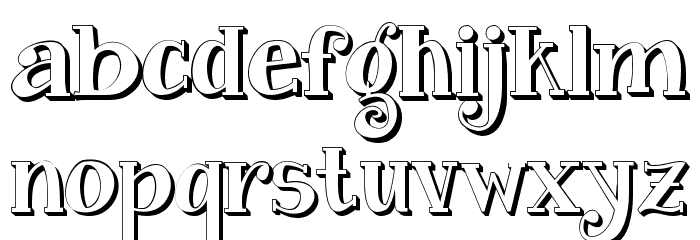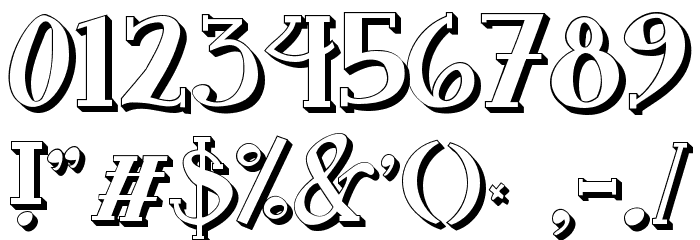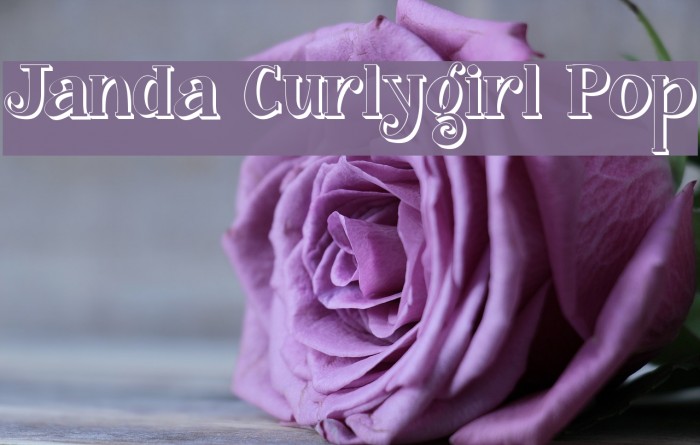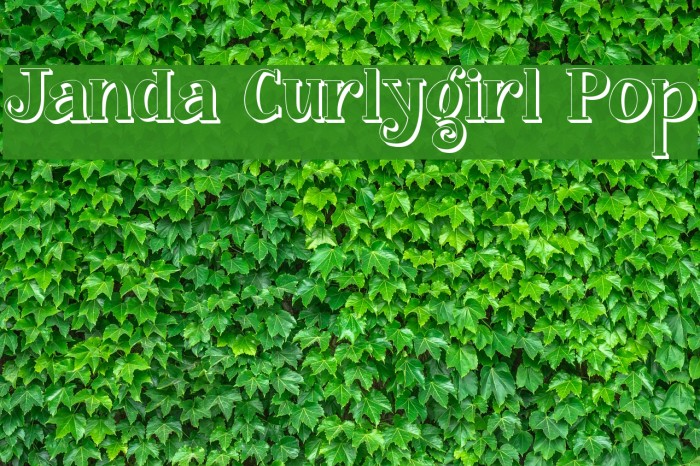
Janda Curlygirl Pop Font
This font features a playful and whimsical design, characterized by its curly and decorative elements. The uppercase letters are bold and prominent, with unique flourishes that add a touch of elegance and fun. The lowercase letters maintain the same playful style, with some characters featuring exaggerated curls and loops that enhance the overall aesthetic. The numbers are consistent with the letterforms, offering a cohesive look across all characters. Special characters are also included, each designed with the same attention to detail and creativity. This font is perfect for projects that require a lighthearted and artistic touch.
A playful and whimsical font with curly, decorative elements.
- Proposed Projects: Ideal for children's books, playful branding, greeting cards, and creative posters.
- Overall Style: Playful and Artistic
- Use Case: Headlines, Logos, Creative Projects